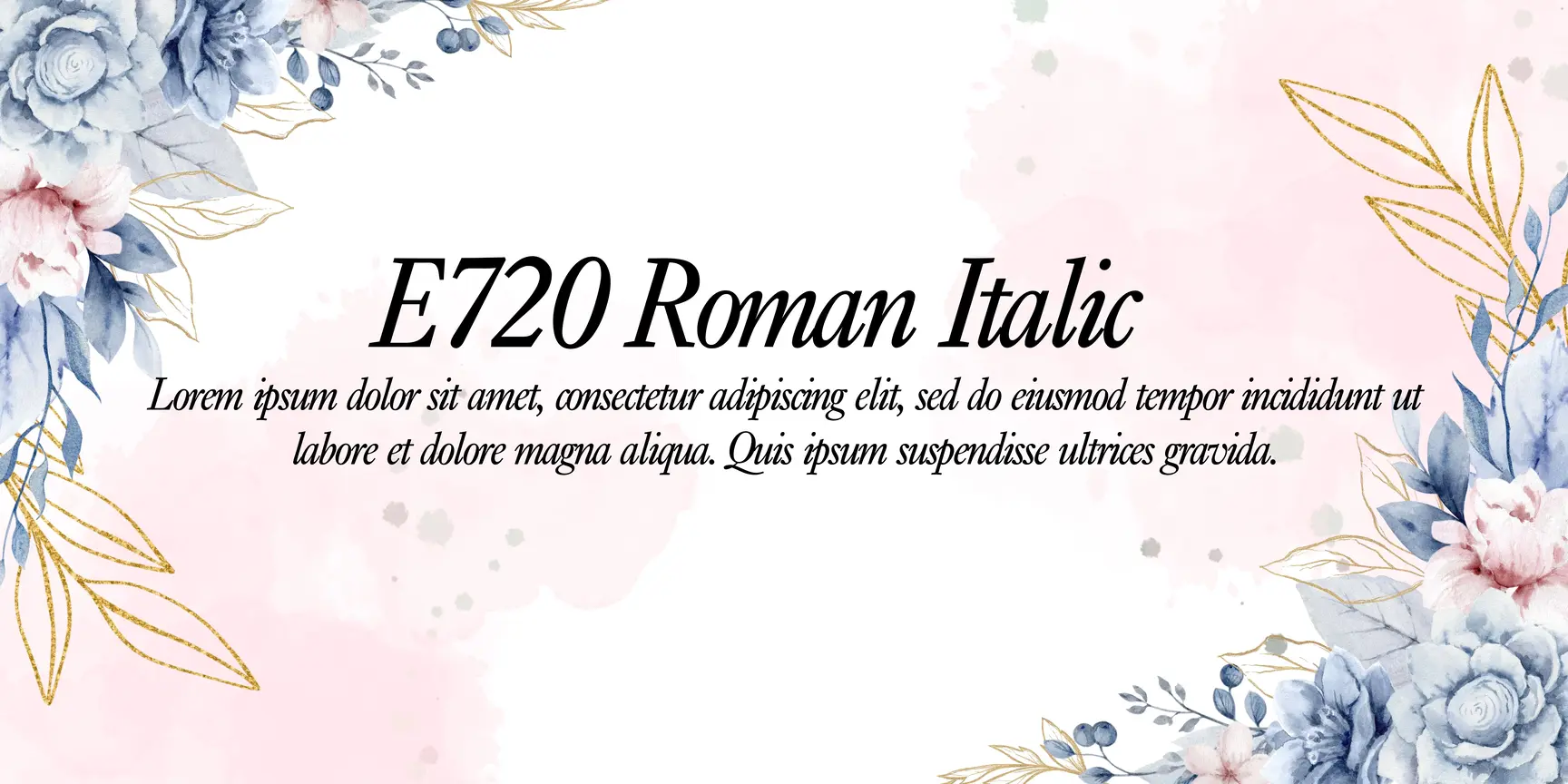
E720 Roman Italic is an ideal font choice for adding a touch of playfulness to your designs. It falls under the Italic subfamily. The font was created by SoftMaker Software GmbH and is available for personal use at no cost.
E720 Roman Italic